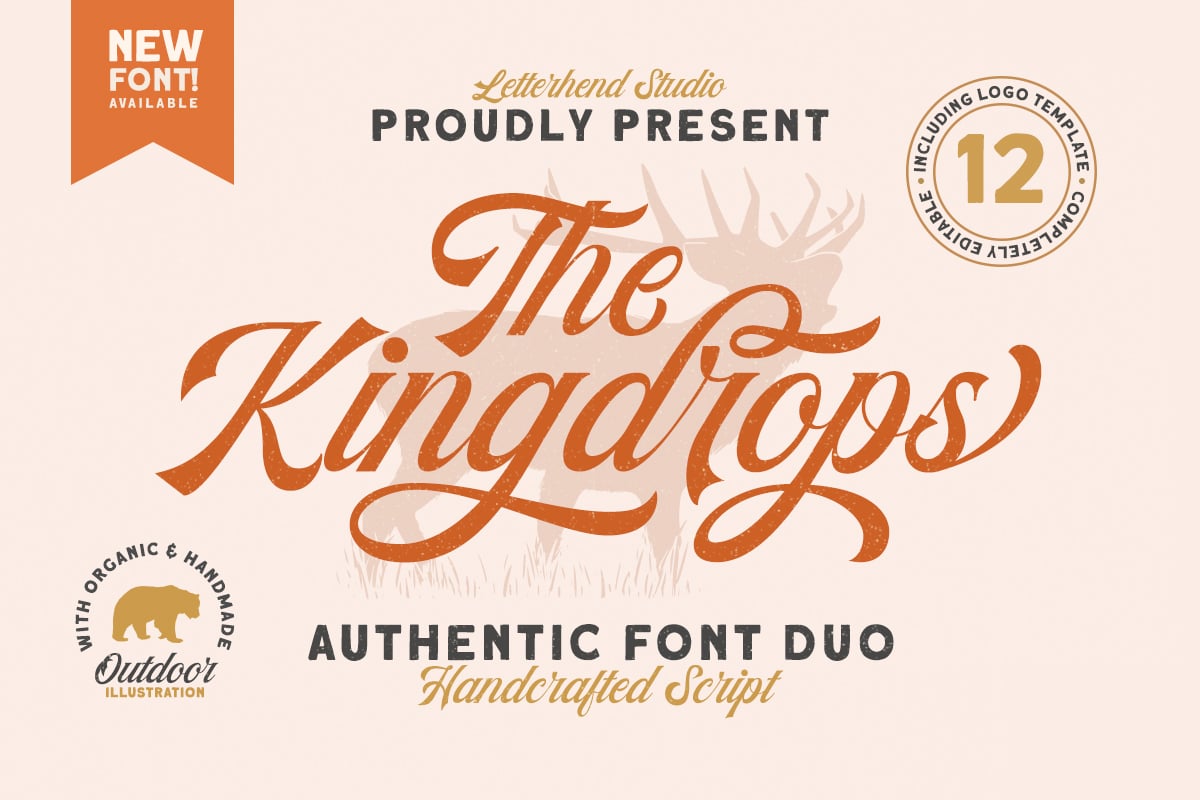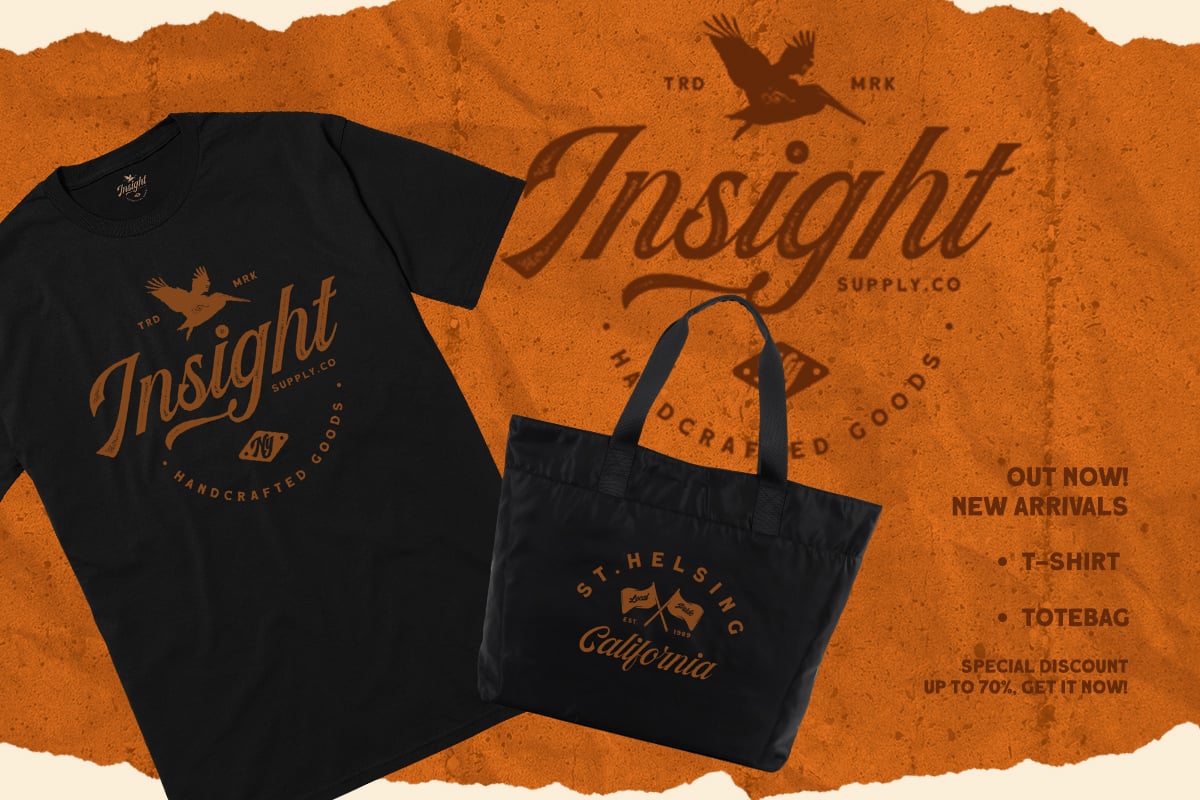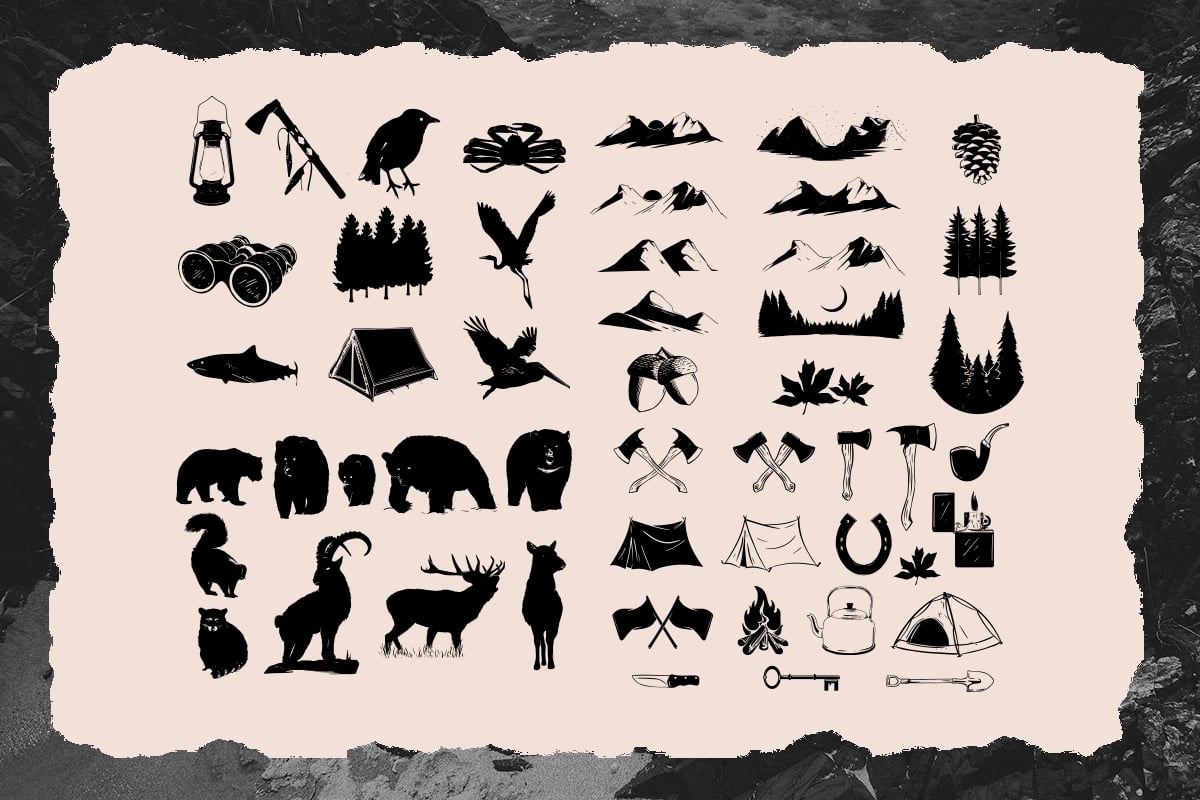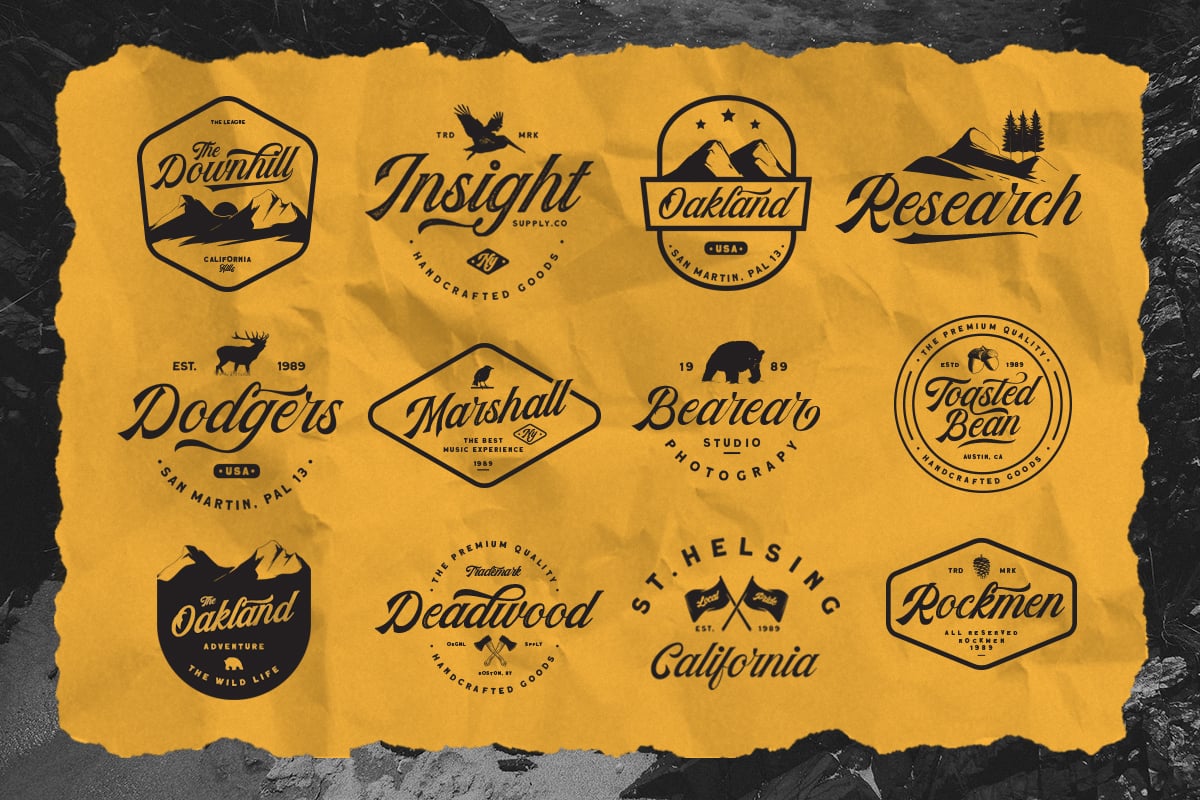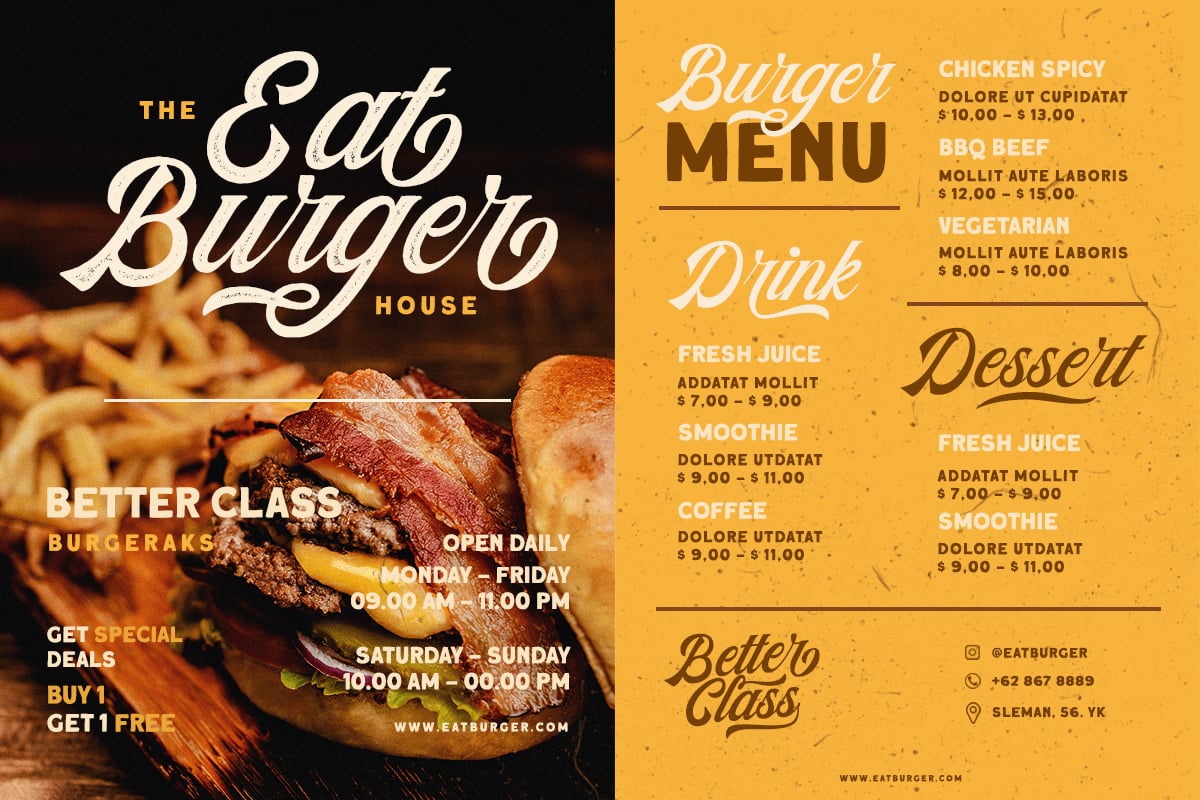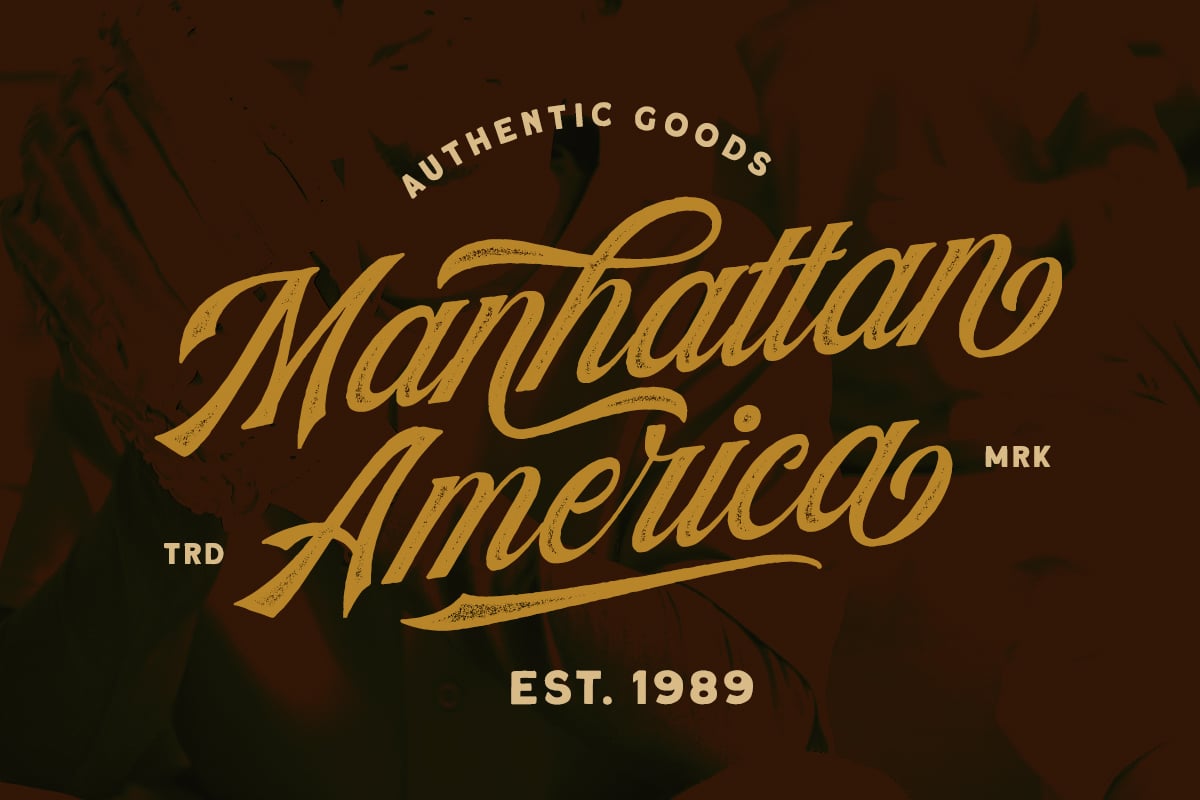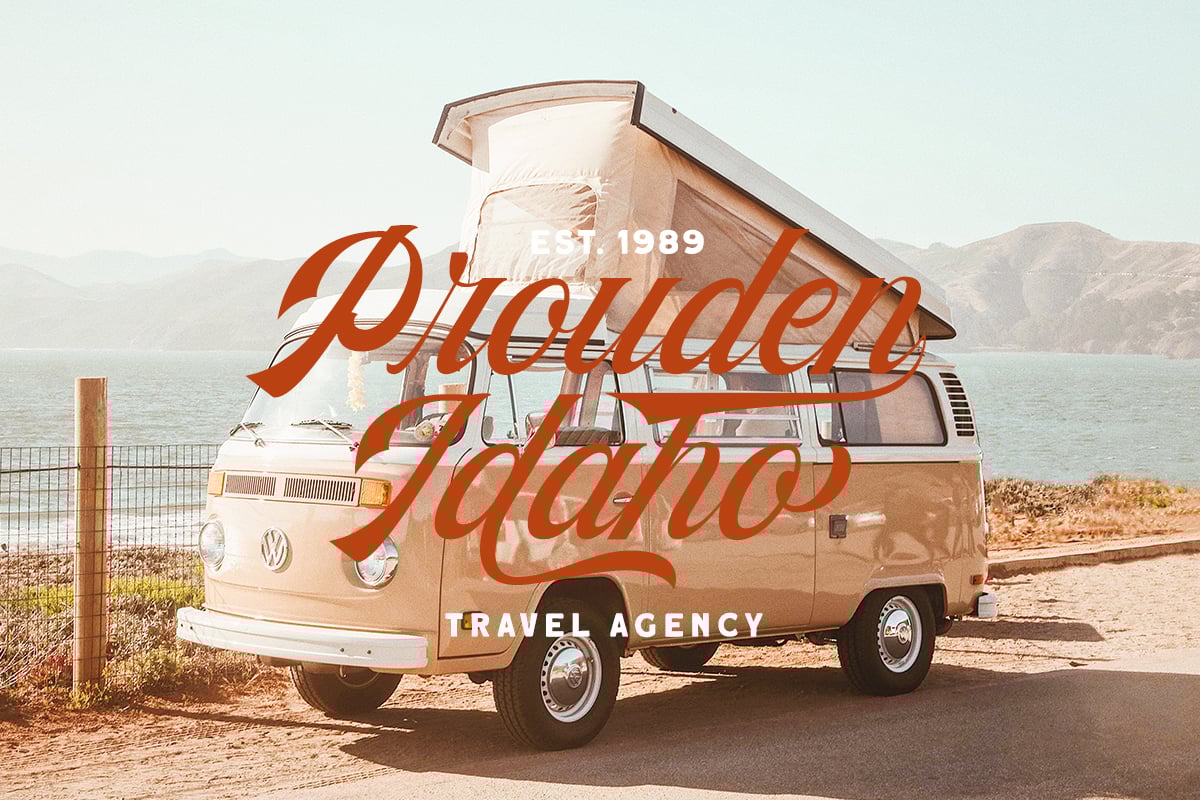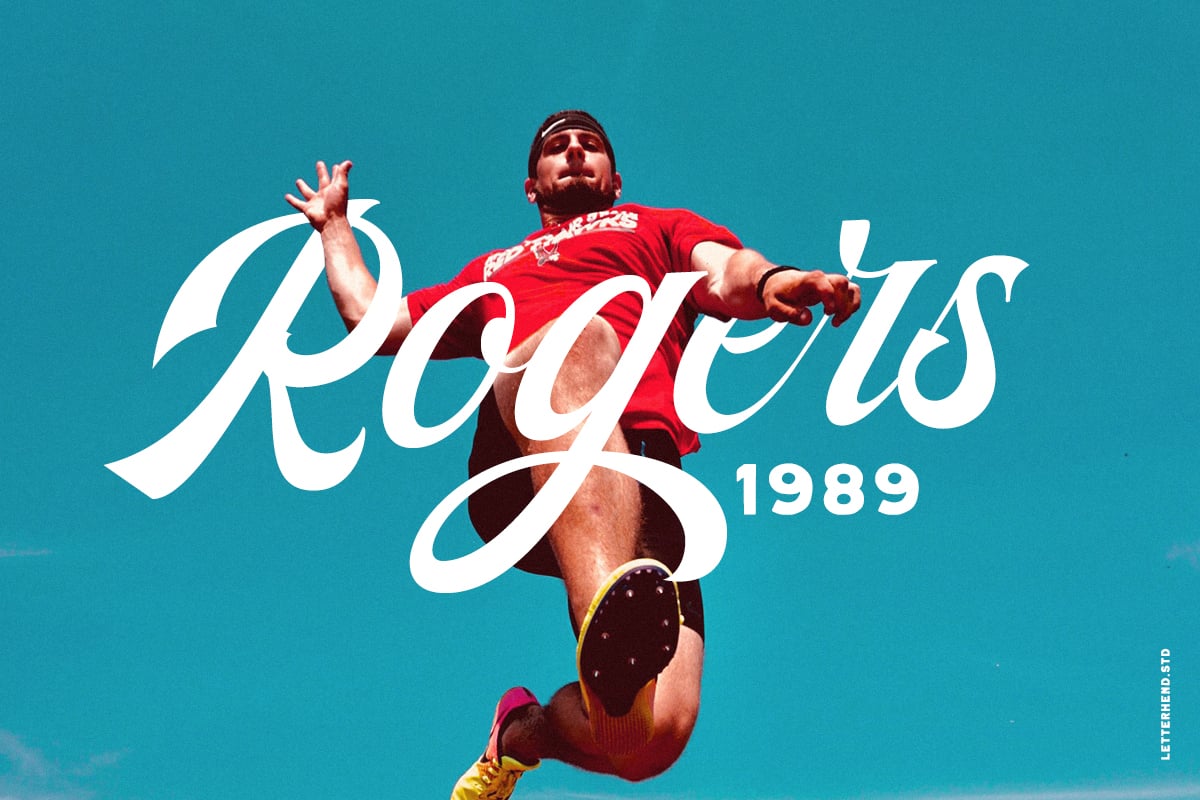
The Kingdrops – Font Duo & Logos
A cool font duo with 50 hand drawing objects, and 12 premade logo templates!
This item contain an amazing hand lettering script typeface with sans typeface as complementary. Provided with 50 hand drawing and 12 logo templates, ready to rock! This font perfectly made to be applied especially in logo, and the other various formal forms such as invitations, labels, logos, magazines, books, greeting / wedding cards, packaging, fashion, make up, stationery, novels, labels or any type of advertising purpose.
- uppercase & lowercase
- numbers and punctuation
- multilingual
- ligatures
- alternates
- swashes